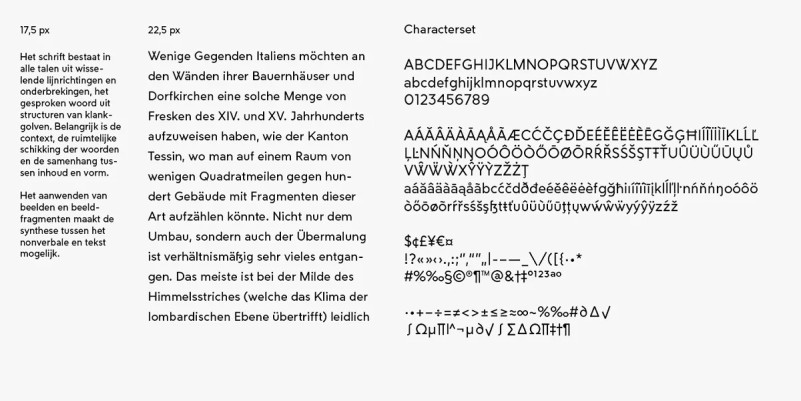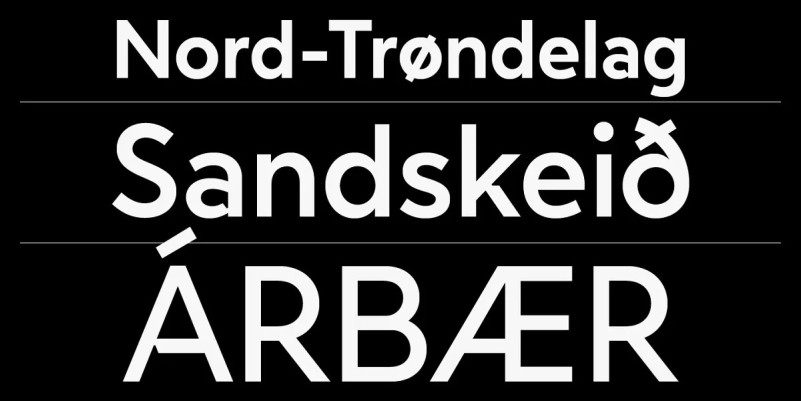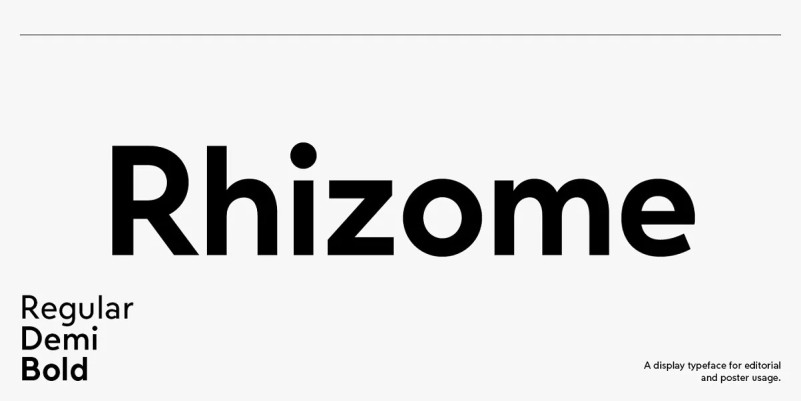
Rhizome Font
Hello Everyone, introduce our new product, Rhizome Sans Serif Font is a rounded sans serif font family based on geometric forms. It combines a glimpse into the past and what was considered as visionary in typography in the beginning of the 20th century. A geometric construction is juxtaposed with classical proportions, letterforms from serif typefaces and details that seem to be shaped by a wedge.